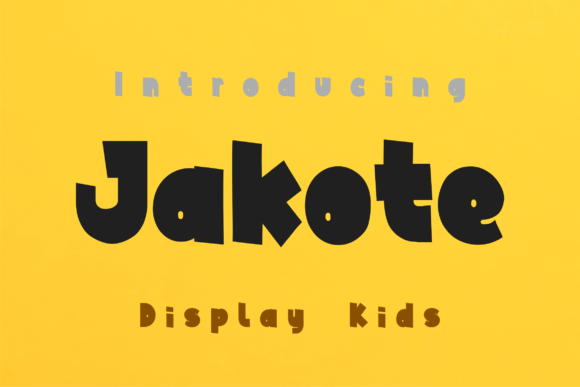
Welcome to the world of Jakote, a font that oozes charm and playfulness, ready to infuse your designs with a touch of whimsy and delight. With its unique and endearing character, Jakote is the perfect choice for adding a dash of personality to your creations.
Imagine a font that brings your ideas to life, transforming ordinary words into captivating expressions. Jakote is that font. Its charming curves and playful strokes dance across the page, creating a visual symphony that captures attention and leaves a lasting impression.
Whether you're a seasoned designer or just starting out, Jakote is your creative companion, ready to lend its unique charm to a myriad of projects. From eye-catching logos and branding to cheerful invitations and greeting cards, Jakote adds a touch of magic to every design.
But Jakote's versatility knows no bounds. It's perfect for creating captivating social media posts, blog headers, and website designs that pop off the screen. Its playful personality shines through in children's books, illustrations, and animations, bringing stories to life with a sense of wonder and imagination.
With Jakote, you're not just downloading a font; you're embracing a world of creativity and endless possibilities. Its delightful quirks and charming details will add a touch of enchantment to your work, leaving your audience captivated and inspired.
So, embark on this creative journey with Jakote, the font that ignites your imagination and transforms your designs into masterpieces of visual storytelling. Let your creativity soar, let your designs bloom, and let Jakote be your guide into a world of boundless creativity.